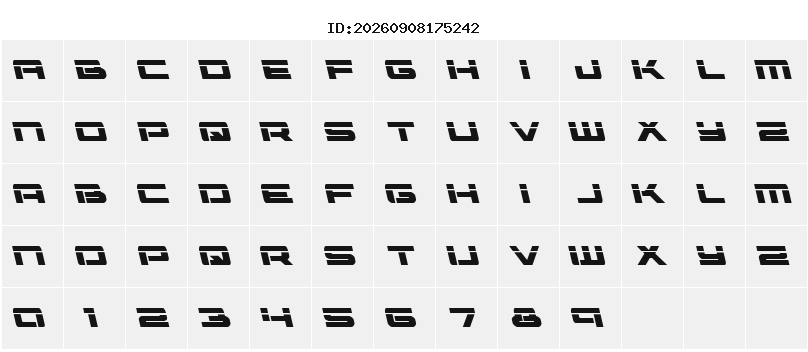
About Vorpal Leftalic.ttf
Vorpal Leftalic.ttf is a modern, elegant sans-serif font designed for ultimate readability and visual harmony. Perfect for branding, headlines, web design, and print materials.